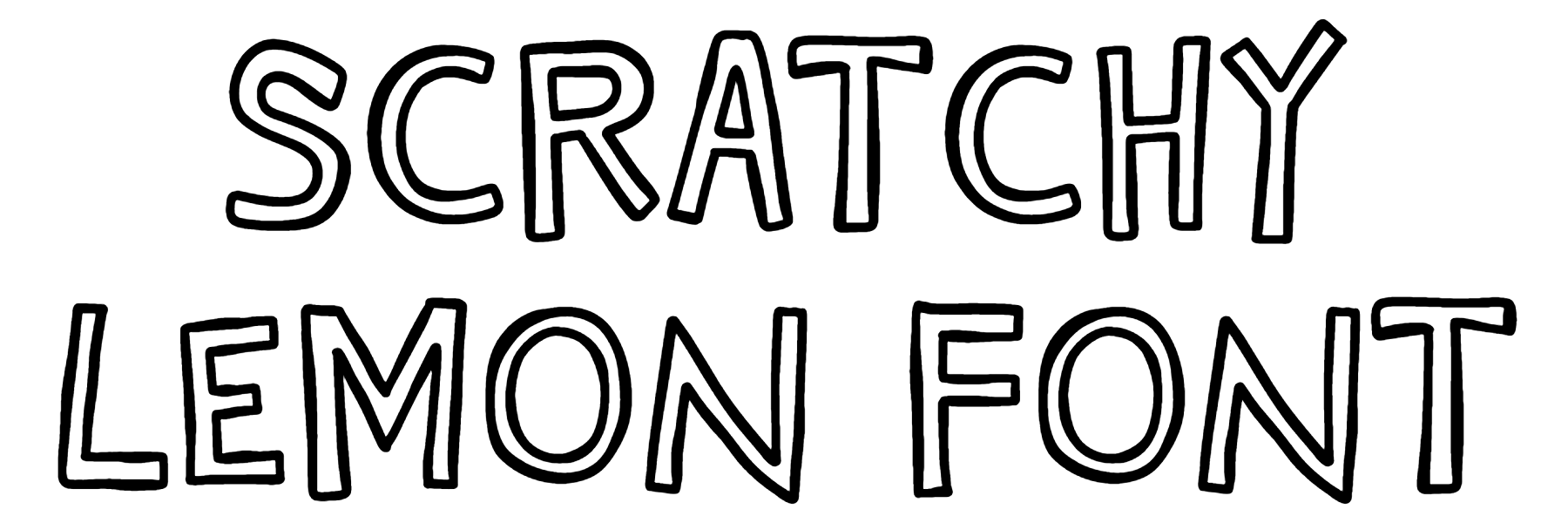
Scratchy Lemon
Scratchy Lemon is a cartoon font designed by Khurasan (2024). Its bouncy, rounded letters feel playful, like lettering from a cartoon or a comic book. It's a free download, and you can try it with your own text in the preview above first.
What You Can Type With Scratchy Lemon
With complete upper and lowercase letters and all ten digits, Scratchy Lemon is ready for real wording, not just a single headline. Common punctuation such as &, !, ? and @ is included as well. It doesn't include accented letters such as é or ñ, which makes it an English-only font.
Where Scratchy Lemon Works Best
Think of Scratchy Lemon for kids' books, birthday invites and fun YouTube thumbnails. Cartoon fonts are great for short, fun lines. If you place it over a busy photo, add a thick outline or a drop shadow so it stays readable.
Who designed Scratchy Lemon font?
Does Scratchy Lemon support accented letters?
No. Scratchy Lemon has no accented letters such as é, ñ or ü, so it's best for English text.